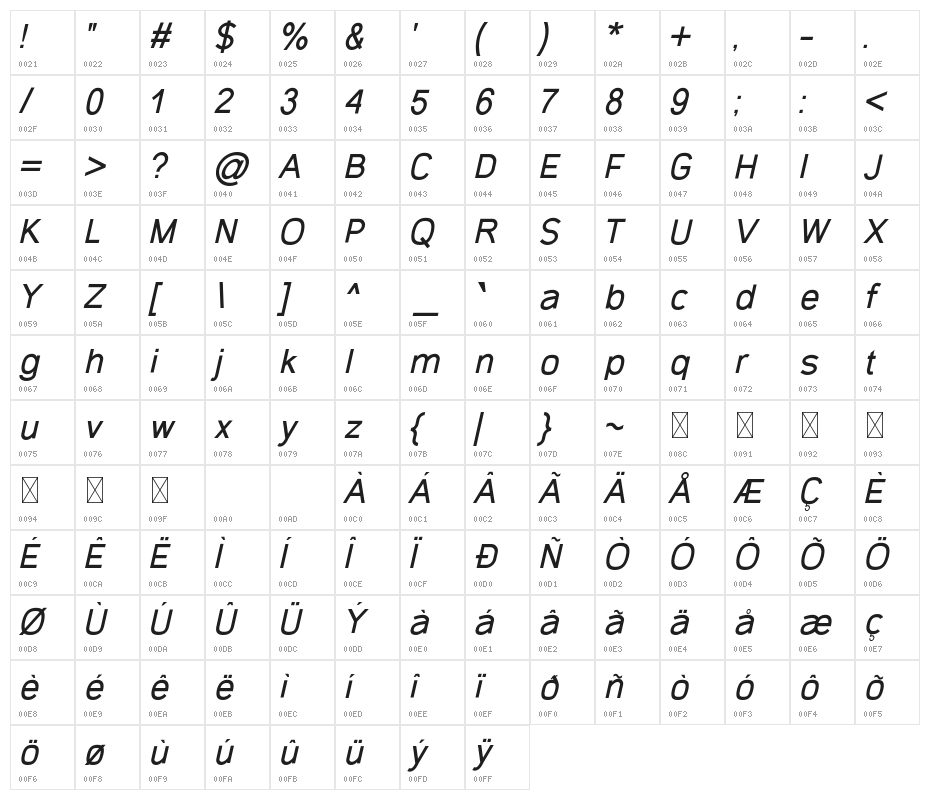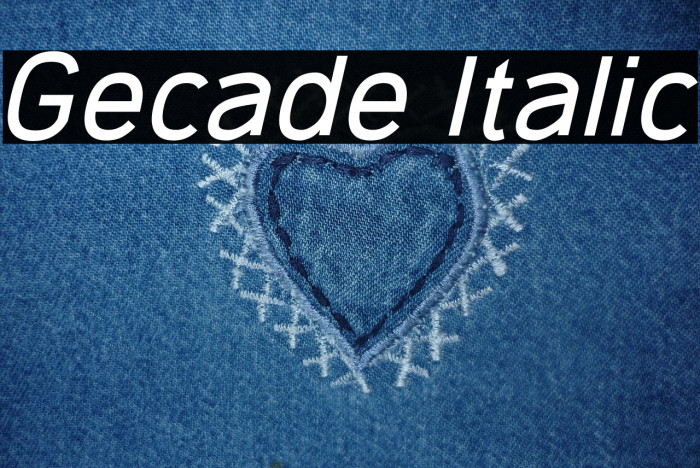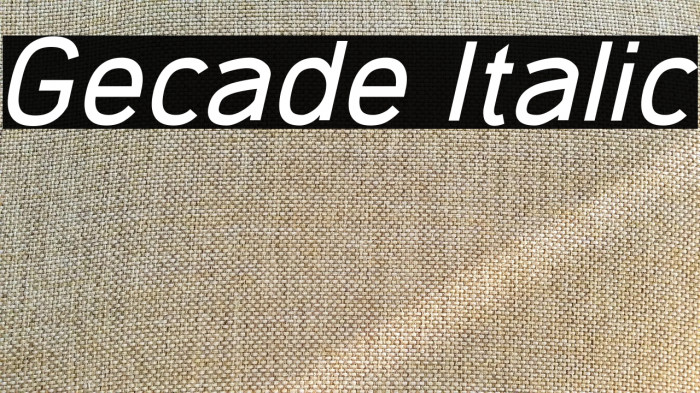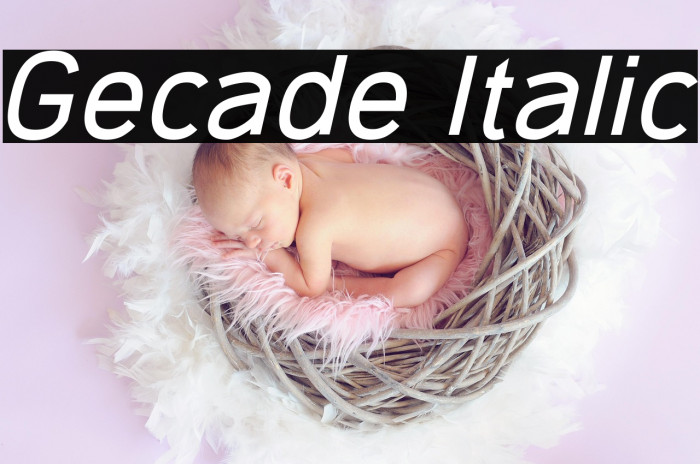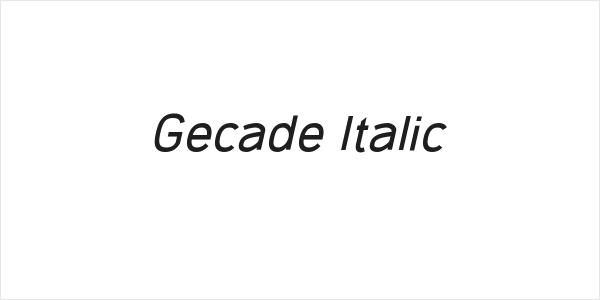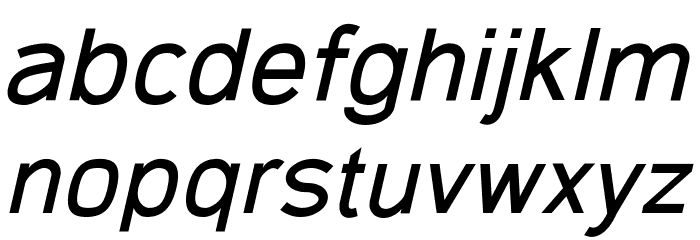
Gecade Italic Font
Gecade Italic Description
This font features a sleek, modern design with a slight italic slant, giving it a dynamic and forward-moving appearance. The characters are clean and sans-serif, providing a contemporary look that is both professional and approachable. The uppercase letters are bold and assertive, while the lowercase letters maintain a consistent flow, enhancing readability. The numerals are clear and distinct, making them suitable for various applications. Special characters are well-defined, ensuring versatility in usage. Overall, the font's design is balanced, with a medium contrast in stroke thickness, contributing to its legibility and aesthetic appeal.
| Proposed Projects | Ideal for branding, advertising, digital media, and editorial design. |